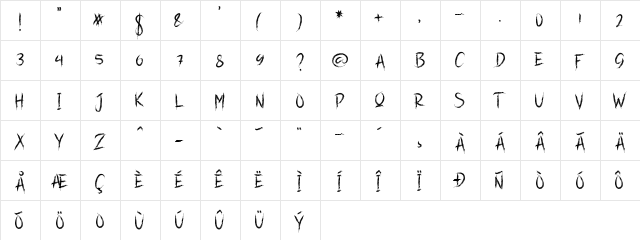
BLACKBURN Regular
| Designer | AMINMARIO 2020 |
Design Context for BLACKBURN Typeface
BLACKBURN is a composed and adaptable typeface that performs quietly and consistently across a wide range of design contexts.